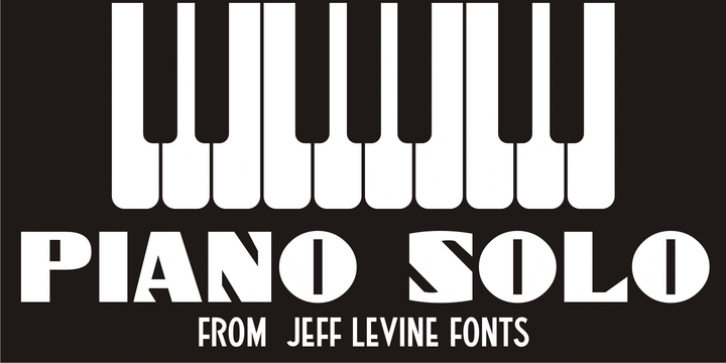
Piano Solo JNL was designed by Jeff Levine and published by Jeff Levine. Piano Solo JNL contains 1 style.
The hand-lettered name on a couple of 1940s-era piano course books was the basis for Piano Solo JNL.